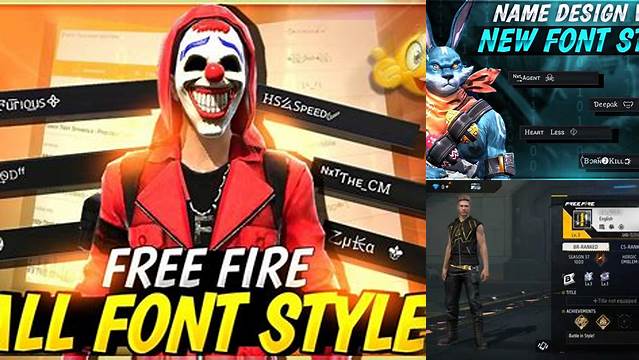
Stylish Font Names For Free Fire: Stand Out!
Are you looking to spice up your Free Fire username with a cool and unique font style? Well, you've come to the right place! In this comprehensive guide, we'll dive deep into the world of Free Fire fonts, exploring how you can generate stylish names, the tools you can use, and some creative ideas to get you started. We understand that having a standout name is a crucial part of your in-game identity, and we're here to help you make a lasting impression. Let's explore how to make your Free Fire name the envy of the battlefield with awesome and stylish fonts. This guide will provide you with all the information you need to create a unique and eye-catching name that reflects your personality and gaming style. So, whether you're a seasoned pro or a newbie just starting out, get ready to transform your Free Fire identity!
Why a Stylish Font Matters in Free Fire
In the fast-paced world of Free Fire, your username is more than just a label; it's your identity. A stylish font can make your name stand out in the lobby, on the leaderboard, and during intense gameplay moments. Think about it, guys – when you see a username with a cool font, it instantly grabs your attention, right? It’s all about making a statement and showing off your personality. A unique font can reflect your gaming style, your sense of humor, or even just your overall vibe. It's like giving your in-game persona a little extra flair. Plus, let's be honest, a stylish name can be intimidating to opponents and impressive to teammates. It adds an element of uniqueness and helps you create a lasting impression. When you have a name that stands out, people are more likely to remember you, whether you’re making epic plays or just hanging out in the lobby. So, why settle for a plain, boring name when you can have a name that's as unique and stylish as you are? In short, a stylish font is more than just aesthetics; it's about making your mark in the Free Fire universe and letting your personality shine through. It's a simple way to add some personality to your gaming experience and make it even more enjoyable.
Understanding Unicode and Font Generators
To create those fancy fonts you see in Free Fire, we need to talk about Unicode. Unicode is essentially a universal character encoding standard that allows computers to display text in different languages and symbols. This is where the magic happens! Free Fire uses Unicode characters, which means you can use a wide range of symbols and characters that aren't typically found on a standard keyboard. Now, you might be thinking, “How do I type these special characters?” That’s where font generators come in. Font generators are online tools that convert your regular text into stylish fonts using Unicode characters. These generators offer a variety of fonts, from bold and italic to cursive and even fonts with cool symbols and decorations. Using a font generator is super easy. You simply type your desired name into the generator, and it will provide you with a list of font options to choose from. You can then copy and paste your chosen font directly into Free Fire. It’s like having a personalized font library at your fingertips! These tools are incredibly user-friendly, making it simple for anyone to create a unique and eye-catching name. Understanding Unicode and using font generators is the key to unlocking a world of creative possibilities for your Free Fire username. So, get ready to explore the different styles and find the perfect font to represent you in the game.
Popular Font Generators for Free Fire
Alright, let's get down to the nitty-gritty and talk about some of the most popular font generators you can use for Free Fire. There are tons of options out there, but we've rounded up a few of the best to get you started. One popular choice is LingoJam. LingoJam offers a simple and straightforward interface with a variety of stylish fonts to choose from. It’s super easy to use – just type in your name, and it generates a list of cool font options instantly. Another great option is Nickfinder. Nickfinder is specifically designed for generating nicknames for games and social media, so it has a wide range of fonts and symbols perfect for Free Fire. Plus, it often includes pre-made names and suggestions if you're feeling a little uninspired. Fancy Text Generator is another excellent tool. It offers a vast selection of fonts and even allows you to add symbols and decorations to your name. This generator is perfect if you want to create a truly unique and personalized username. Cool Text Generator is also a favorite among Free Fire players. It provides a user-friendly interface and a variety of font styles, including cursive, bold, and even fonts with emojis. No matter which generator you choose, the process is generally the same: type your name, browse the font options, and copy the one you like. It's that simple! These font generators are your secret weapon for creating a standout name in Free Fire, so experiment with a few and find the one that suits your style best. Remember, the goal is to find a font that represents you and makes your name memorable.
Step-by-Step Guide to Changing Your Font in Free Fire
Creative Font Ideas and Symbol Combinations
Okay, guys, let's get those creative juices flowing! Coming up with a unique and stylish font for your Free Fire name is all about combining different elements and thinking outside the box. So, let’s dive into some creative font ideas and symbol combinations that will make your name truly stand out. First off, consider mixing different font styles. You can use a bold font for the main part of your name and then add some flair with a cursive or italic font for a special touch. This can create a dynamic and eye-catching effect. Another great idea is to incorporate symbols into your name. Font generators often offer a variety of symbols, such as stars, hearts, swords, and more. Adding these symbols can give your name a unique and personalized look. For example, you could surround your name with stars or add a sword symbol to show off your fighting spirit. You can also use symbols to replace letters or create visual puns. This adds an extra layer of creativity to your username. Experiment with different combinations to see what looks best and represents your personality. Think about your gaming style and try to reflect that in your name. If you're an aggressive player, you might choose a bold font with sharp symbols. If you're more of a stealthy player, a subtle font with delicate symbols might be a better fit. Don't be afraid to try out different ideas and get feedback from your friends. The goal is to create a name that's both stylish and memorable. So, let your imagination run wild and have fun with it! Remember, your Free Fire name is a reflection of you, so make it awesome.
Sometimes, even with the best intentions, you might run into a few issues when trying to change your font in Free Fire. But don't worry, we're here to help you troubleshoot those common problems and get your name looking stylish in no time. One common issue is that the font doesn't appear correctly in the game. This usually happens if the font uses Unicode characters that aren't fully supported by Free Fire. To fix this, try using a different font or symbol from the font generator. Some fonts are more compatible with the game than others, so it might take a little experimentation to find the perfect one. Another issue you might encounter is the character limit. Free Fire has a limit on the number of characters you can use in your username. If your chosen font makes your name too long, you'll need to shorten it. Try abbreviating some words or removing unnecessary symbols to make it fit. Sometimes, you might copy and paste the font into Free Fire, but it appears as a series of squares or question marks. This usually indicates a compatibility issue. Again, try using a different font generator or a different font style within the generator. It's also a good idea to double-check that you've copied the font correctly. Make sure you're copying the entire name, including any symbols or special characters. If you're still having trouble, try restarting Free Fire. This can sometimes resolve minor glitches and compatibility issues. And if all else fails, don't hesitate to reach out to the Free Fire community for help. There are plenty of experienced players who can offer advice and suggestions. Troubleshooting font issues can be a bit frustrating, but with a little patience and experimentation, you'll get your name looking just the way you want it.
Final Thoughts: Making Your Mark in Free Fire
So, there you have it, guys! A comprehensive guide to creating a stylish font for your Free Fire name. We've covered everything from why a unique font matters to the step-by-step process of changing your name and troubleshooting common issues. By now, you should be well-equipped to create a username that not only looks cool but also reflects your personality and gaming style. Remember, your Free Fire name is your identity in the game, so it's worth taking the time to make it stand out. A stylish font can make a big difference in how you're perceived by other players, and it can even give you a psychological edge on the battlefield. Don't be afraid to experiment with different fonts, symbols, and combinations until you find the perfect fit. Use the font generators we've discussed as your creative playground and let your imagination run wild. And most importantly, have fun with it! Changing your font in Free Fire is a simple way to add some personality to your gaming experience and make it even more enjoyable. So go ahead, create a name that's as unique and awesome as you are. Make your mark in the Free Fire universe and let your style shine! We hope this guide has been helpful and inspiring. Now, go out there and conquer the game with your new, stylish name!